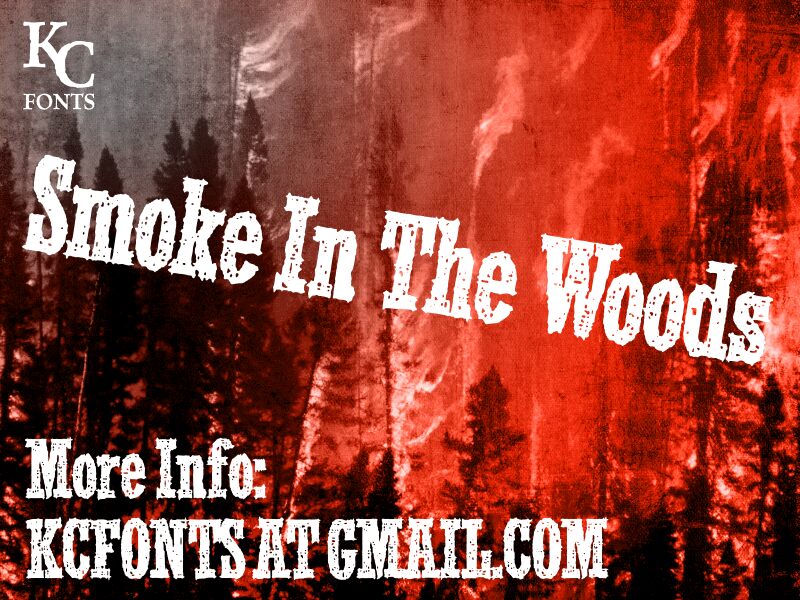
Smoke In The Woods by Kevin Christopher is a free eroded Western display font with broad slab serifs and a battered surface. Its tall, uneven letters recall timber signage and frontier printing. Chips and gaps break up the dark strokes.
A saloon poster is its strongest role, with the worn texture supplying an immediate period cue. It also fits whiskey packaging, country music merchandise, and Western event graphics. The damaged edges can echo weathered wood, stamped labels, and distressed illustration.